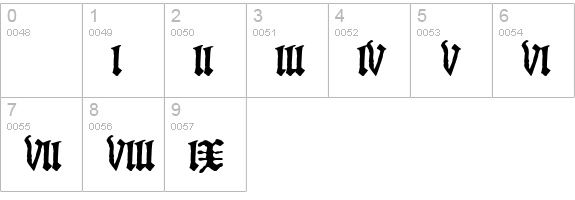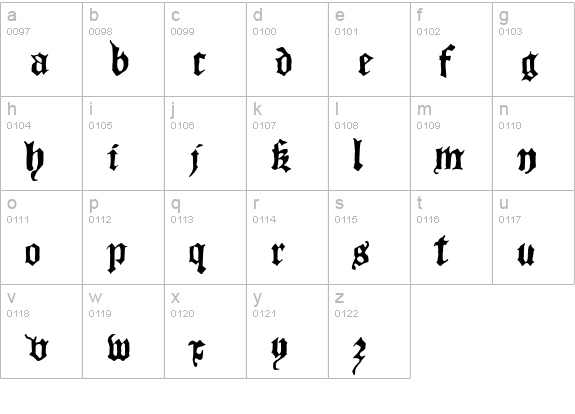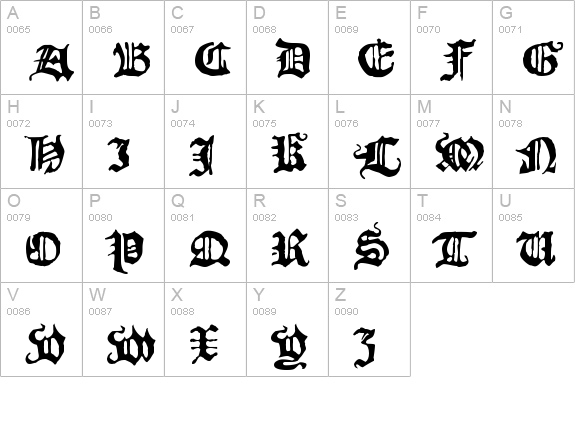
Blackletter HPLHS Font Details
Blackletter HPLHS font is a striking and bold typeface that exudes a sense of historical elegance and sophistication. Its intricate details and sharp angles give it a distinctive Gothic appearance, making it perfect for adding a touch of drama to your design projects. This unique font is ideal for creating eye-catching headlines, branding materials, posters, and more. The sharp serifs and ornate flourishes of Blackletter HPLHS font make it a standout choice for projects that require a touch of old-world charm and tradition. Best of all, Blackletter HPLHS font is available for free download at FontsMarket.com, allowing you to easily incorporate this stunning typeface into your designs without any cost. Whether you're a professional designer or a hobbyist looking to add a touch of sophistication to your projects, Blackletter HPLHS font is sure to impress with its bold and distinctive style.